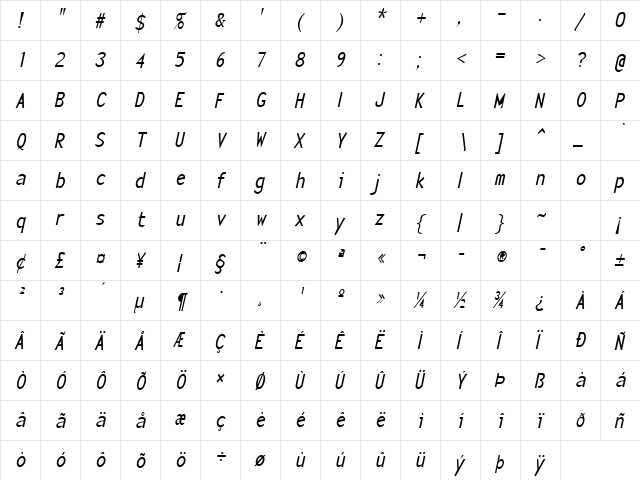
Sensor-Condensed Italic Font Preview
Design Context for Sensor-Condensed Typeface
Sensor-Condensed takes a measured approach to typography — its balanced proportions and neutral character make it a reliable workhorse for both digital and print work. The dynamic lean of this cut emphasises speed and emphasis in any layout. The condensed width makes it efficient for tight spaces without sacrificing legibility.